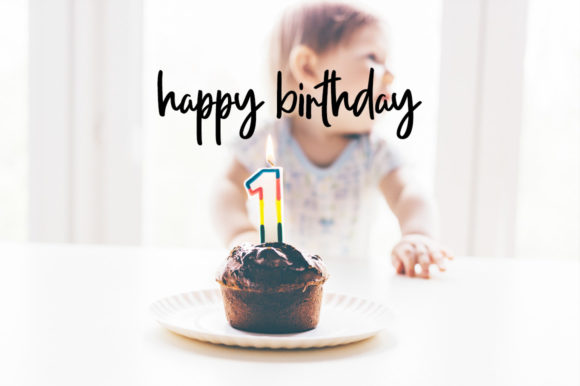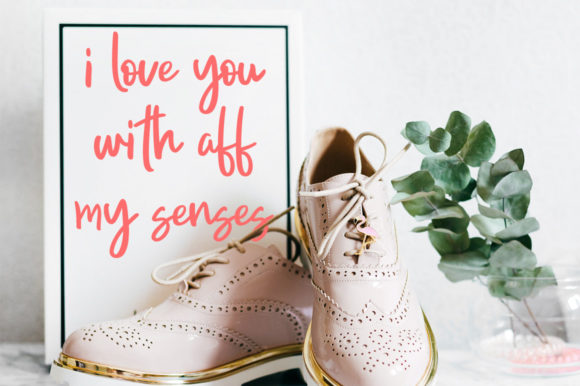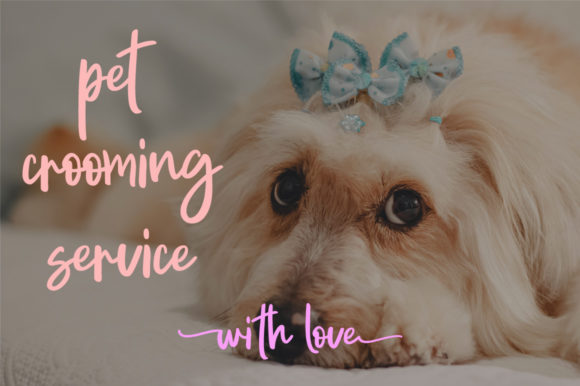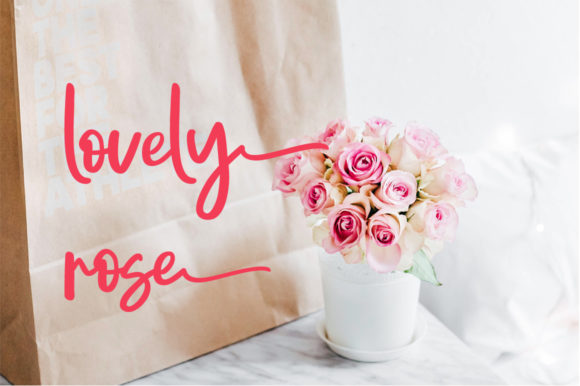
Brewoke Font: The Perfect Blend of Bold and Casual
In the world of typography, a good font can make all the difference in the success of a design project. Whether you’re a seasoned designer or a crafty DIY enthusiast, finding the right font can be a daunting task. That’s where Brewoke Font comes in – a bold script carefully handcrafted to become a true favorite among designers and crafters alike.
The Charm of Brewoke Font
Brewoke Font boasts a unique blend of boldness and casual charm, making it an incredibly versatile font for various design applications. Its handcrafted nature gives it a personal touch, setting it apart from more generic fonts. The result is a font that exudes a wonderfully down-to-earth feel, making it perfect for designs that require a friendly and approachable tone.
Readability and Versatility
One of the standout features of Brewoke Font is its exceptional readability. Even at smaller font sizes, Brewoke remains clear and legible, making it ideal for use in a variety of contexts. Whether you’re using it as a standalone headline or as body text on a busy background, Brewoke Font adapts seamlessly. Its versatility is unmatched, allowing designers to experiment with different styles, from elegant and sophisticated to bold and playful.
Design Applications
Brewoke Font’s adaptability makes it suitable for a wide range of design applications. Here are a few ideas to get you started:
- Branding and Logos: Use Brewoke Font to create a memorable brand identity that stands out from the crowd.
- Headlines and Titles: Add a touch of elegance and sophistication to your headlines and titles with Brewoke Font’s bold and casual charm.
- Packaging Design: Make your product packaging stand out with Brewoke Font’s unique and eye-catching style.
- Digital Media: Use Brewoke Font in your digital media, such as social media graphics, blog posts, and website headers, to add a personal touch.
Why Choose Brewoke Font?
With so many fonts available, why choose Brewoke Font? Here are a few reasons why Brewoke Font stands out:
- Unique Design: Brewoke Font’s handcrafted design gives it a unique and distinctive look that sets it apart from more generic fonts.
- Exceptional Readability: Brewoke Font’s careful attention to detail ensures that it remains readable even at smaller font sizes.
- Versatility: Brewoke Font’s adaptability makes it suitable for a wide range of design applications and styles.
Tips for Using Brewoke Font
To get the most out of Brewoke Font, here are a few tips to keep in mind:
- Experiment with Different Sizes: Brewoke Font looks great at a variety of font sizes, so don’t be afraid to experiment to find the perfect fit for your design.
- Pair it with Other Fonts: Brewoke Font pairs well with a range of other fonts, so try combining it with different fonts to create a unique look.
- Use it as a Statement Piece: Brewoke Font’s bold and casual charm makes it perfect for use as a statement piece in your design.
In conclusion, Brewoke Font is a bold and versatile script font that is sure to become a favorite among designers and crafters. Its unique blend of boldness and casual charm makes it perfect for a wide range of design applications, from branding and logos to packaging design and digital media. With its exceptional readability and adaptability, Brewoke Font is a font that will help you take your designs to the next level.